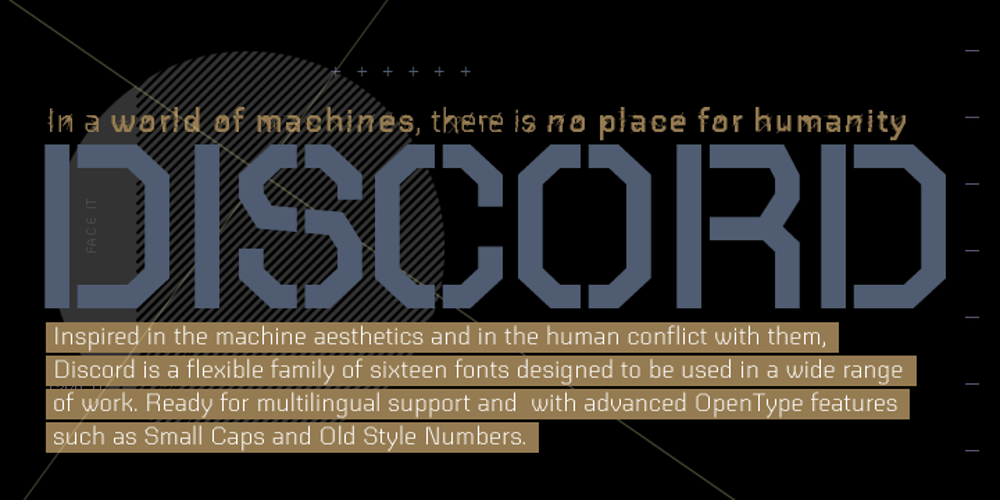
Discord Font Family was designed by Rafael Neder and published by Neder. Discord contains 16 styles and family package options. Inspired in the machine aesthetics and in the human conflict with them, Discord is a flexible family of sixteen fonts designed to be used in a wide range of work. Ready for multilingual support and with advanced OpenType features such as Small Caps and Old Style Numbers.